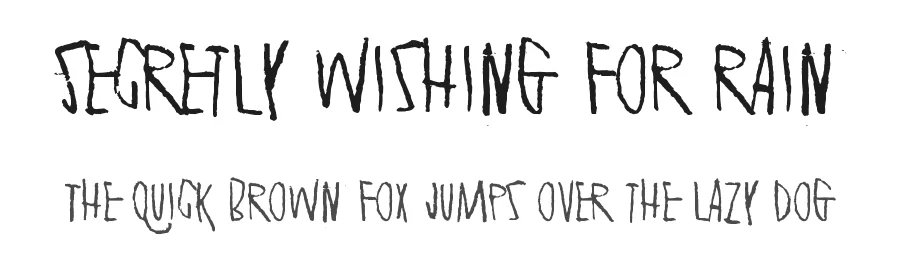
About Nerdproof Font
Nerdproof is a script & handwritten font designed by Pizzadude. It includes 111 glyphs, a regular weight, TTF (TrueType) format, and 108 languages. Nerdproof is free to download; check the license details on this page before commercial use. Script & handwritten fonts like Nerdproof work best for wedding invitations, greeting cards, signatures, and elegant branding.
Nerdproof Font is a script font that shines as a display or heading face. Pair it with a clean sans-serif or serif font for body text β the contrast creates a clear hierarchy while the two styles stay balanced and easy to read.
Nerdproof Font is a script handwritten typeface by Pizzadude, ideal for logos, invitations, branding, and creative projects.